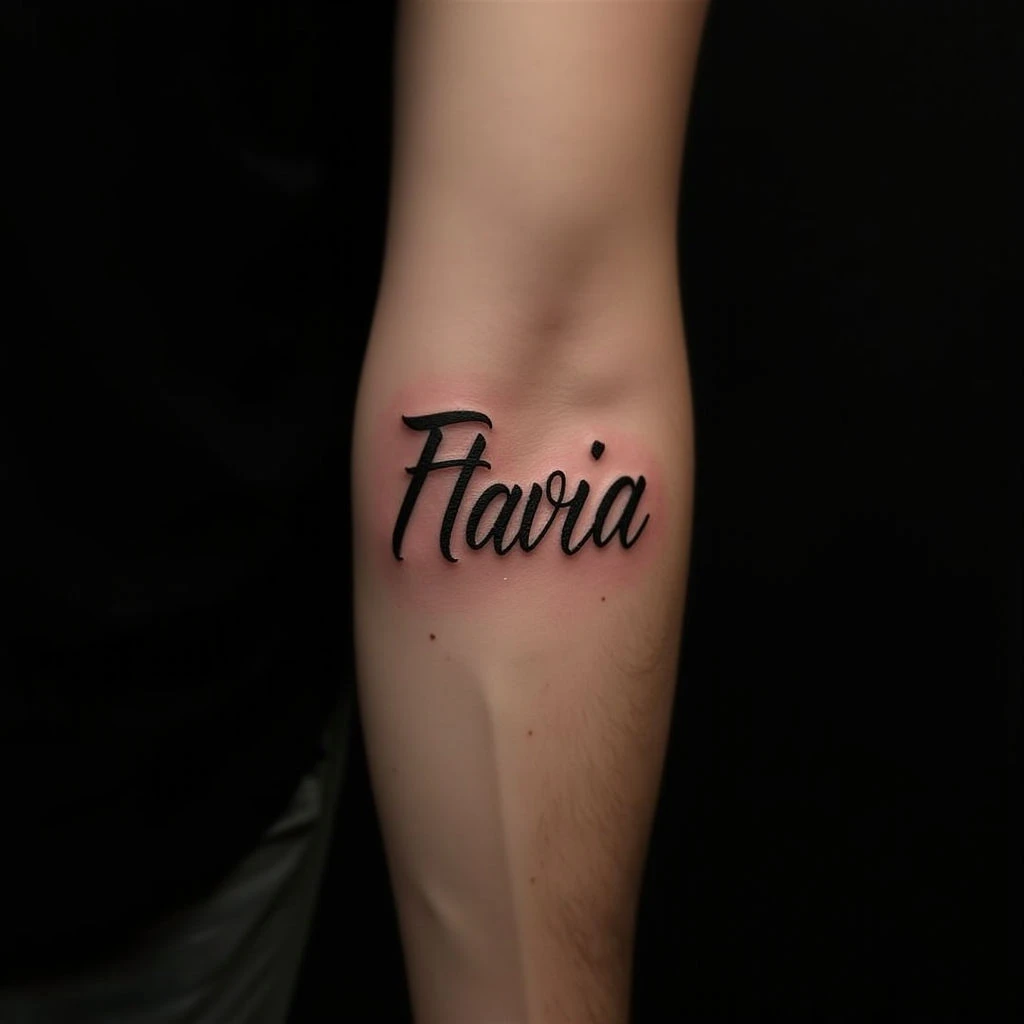
Looking for the perfect tattoo font to immortalize a loved one's name? Discover stylish options, from classic scripts to modern typography, ideal for forearm tattoos. Find inspiration and design tips!
Best Tattoo Fonts for Names on Your Forearm
Smooth black ink flows across the inner forearm, forming a script name tattoo. The lettering is characterized by consistent thickness and spacing, resulting in clean lines and high detail—a testament to skilled linework.
Choosing the right font elevates a memorial tattoo. Forearm placement offers visibility and personal significance; consider classic scripts for elegance or modern typography for a contemporary feel when immortalizing a name.
This design, suitable for any color palette, demonstrates how careful font selection can transform a simple name into a meaningful piece of body art. Size matters too—a medium size allows for detail while remaining balanced on the forearm.